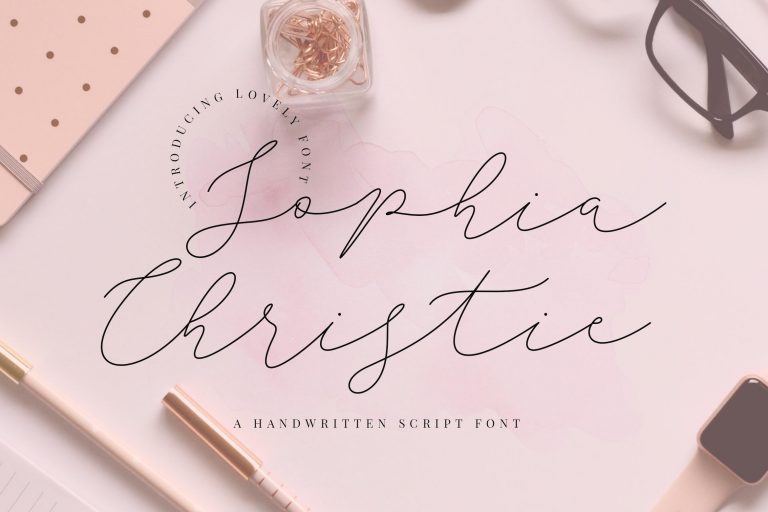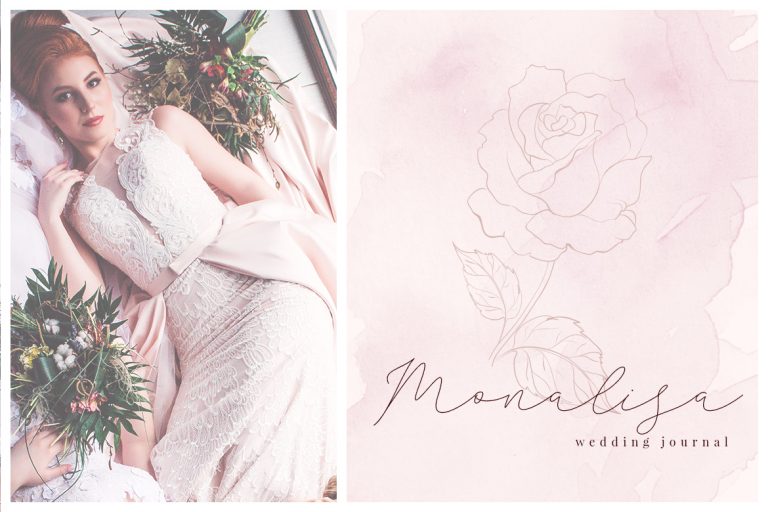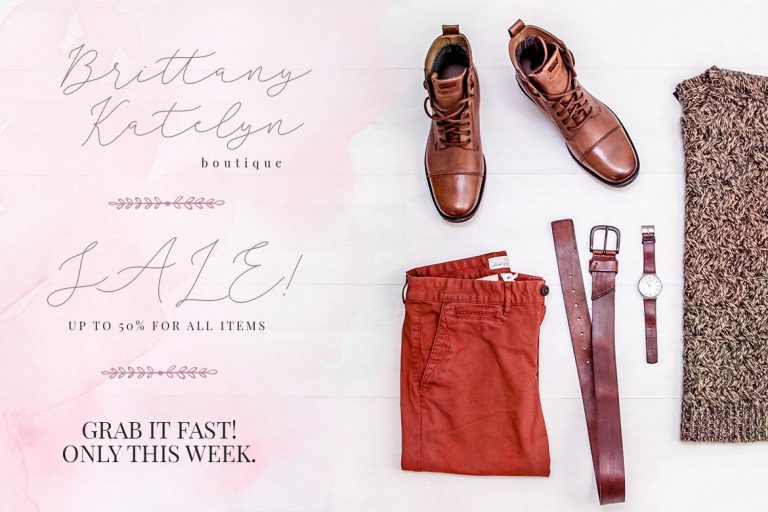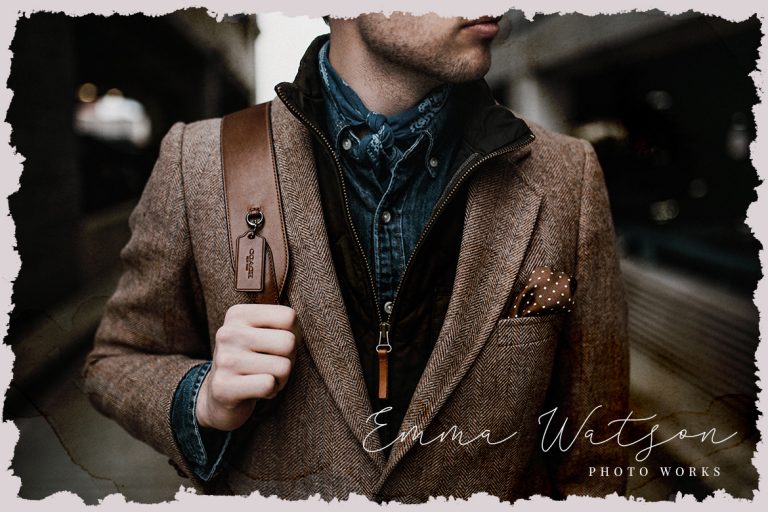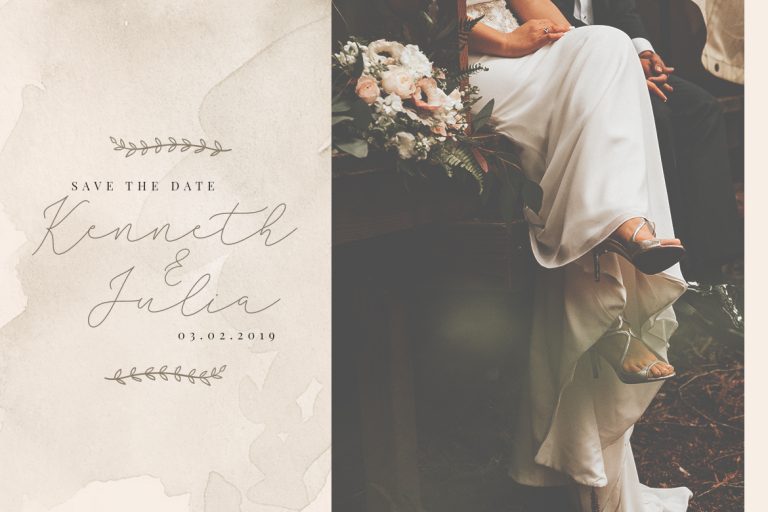
Sophia Christie Script is light, lovely signature modern calligraphy font with contemporary, elegant, debonair feeling and sophisticated accents.
Sophia Christie Script is perfect for branding projects, logo, wedding designs, social media posts, advertisements, product packaging, product designs, label, photography, watermark, invitation, stationery and any projects that need handwriting taste.
• Fonts include multilingual support for; ä ö ü Ä Ö Ü ß ¿ ¡
Sophia Christie Script